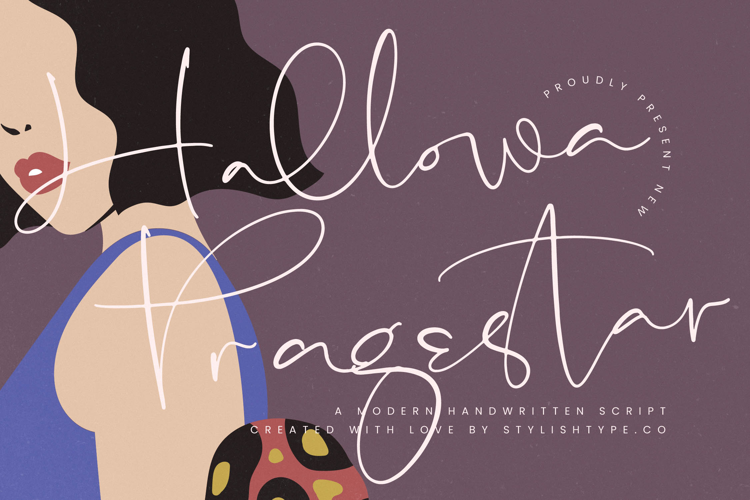
Hallowa Pragestar - Modern Handwritten Font
Hallowa Pragestar - Modern Handwritten Font Script is a stunning, high-contrast script typeface designed for maximum impact and elegance. Its signature features include sweeping ascenders and descenders, giving it a genuinely handwritten feel while maintaining sophisticated digital polish. The thin, fluid strokes connect seamlessly, creating a dynamic rhythm that captivates the viewer and elevates commonplace text into a work of artistic expression.